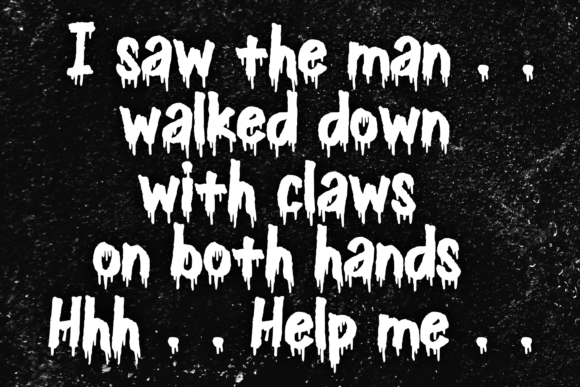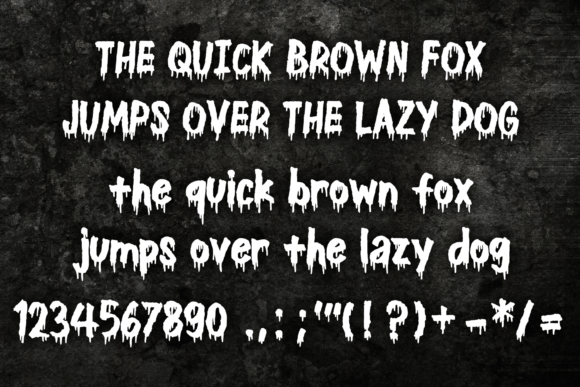
Dripping Halloween Font: The Ultimate Horror Touch for Your Designs
Are you looking for a font that will add a spooky touch to your designs? Look no further than the Dripping Halloween Font. This cool ink drips Halloween font is inspired by vintage horror movies, horror comics, and metal music, making it perfect for your horror and Halloween-themed needs.
The Inspiration Behind Dripping Halloween Font
The Dripping Halloween Font is inspired by the classic horror movies and comics that we all know and love. The font’s design is reminiscent of the bold, gory, and eerie style of vintage horror movies and comics. The dripping effect simulates blood, slime, or melting liquid, which strongly evokes a spooky, creepy, or horror atmosphere. This font is sure to bring a touch of nostalgia and horror to your designs.
Perfect for Horror and Halloween-Themed Needs
The Dripping Halloween Font is perfect for any horror or Halloween-themed project. Whether you’re designing merchandise like t-shirts and clothing, creating scary book designs, or planning a Halloween party, this font is sure to add a touch of horror to your designs. You can use it for greeting cards, stickers, posters, banners, or anything that needs a horror touch.
Exaggerated Stylistic Treatment
The Dripping Halloween Font features an exaggerated stylistic treatment that is typical of display fonts. The dripping effect adds a sense of drama and horror to your designs, making it perfect for grabbing attention. The font’s bold and eerie style is sure to make your designs stand out from the crowd.
Uses for Dripping Halloween Font
The Dripping Halloween Font is versatile and can be used for a variety of projects, including:
- Merchandise: t-shirts, clothing, hats, and more
- Scary book designs: horror novels, comics, and graphic novels
- Halloween party needs: invitations, decorations, and party favors
- Greeting cards: Halloween-themed cards and horror-themed cards
- Stickers and decals: add a horror touch to your stickers and decals
- Posters and banners: create eye-catching posters and banners for horror movies, Halloween parties, and more
Why Choose Dripping Halloween Font?
There are many reasons why you should choose the Dripping Halloween Font for your horror and Halloween-themed projects. Here are a few:
- Unique and eye-catching: The Dripping Halloween Font is unlike any other font on the market. Its bold and eerie style is sure to grab attention and add a touch of horror to your designs.
- Versatile: The font is versatile and can be used for a variety of projects, from merchandise to party decorations.
- Inspired by vintage horror: The font’s design is inspired by vintage horror movies and comics, making it perfect for horror and Halloween-themed projects.
Tips for Using Dripping Halloween Font
Here are a few tips for using the Dripping Halloween Font in your designs:
- Use it sparingly: The Dripping Halloween Font is bold and eye-catching, so use it sparingly to avoid overwhelming your design.
- Pair it with other fonts: Pair the Dripping Halloween Font with other fonts to create a unique and interesting design.
- Experiment with colors: Experiment with different colors to find the perfect combination for your design.
The Dripping Halloween Font is the perfect addition to any horror or Halloween-themed project. Its bold and eerie style is sure to grab attention and add a touch of horror to your designs. With its versatility and unique design, it’s the perfect font for designers and crafters looking to add a spooky touch to their work.